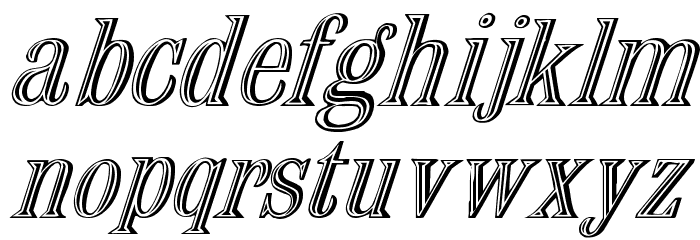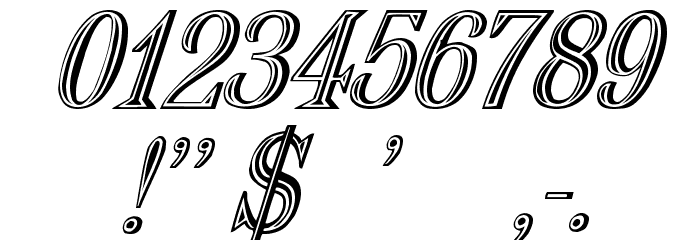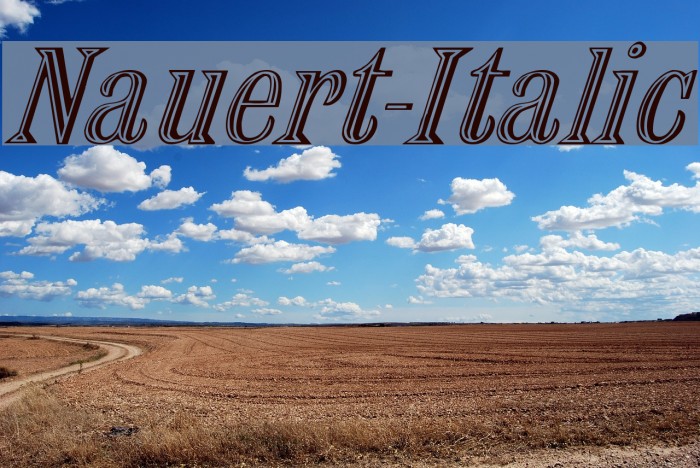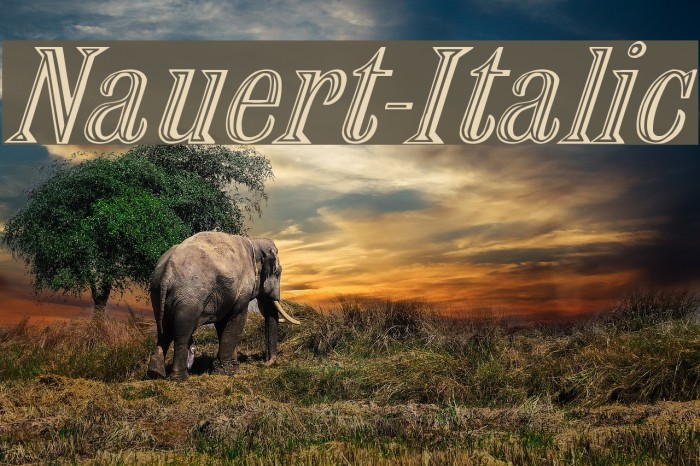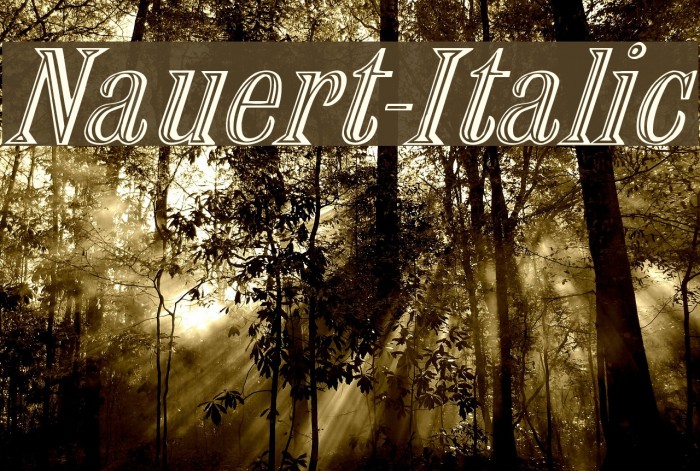
Nauert-Italic Font
This font features a classic serif style with an elegant italic slant, giving it a sophisticated and timeless appearance. The characters are adorned with thin, sharp serifs and a distinct contrast between thick and thin strokes, enhancing its readability and visual appeal. The uppercase letters are bold and commanding, while the lowercase letters maintain a graceful flow. The numerals are well-proportioned, and the special characters are designed with the same attention to detail, ensuring consistency throughout the typeface. This font is ideal for projects that require a touch of elegance and tradition.
An elegant serif font with an italic slant and high contrast strokes.
- Proposed Projects: Ideal for wedding invitations, luxury branding, editorial design, and formal documents.
- Overall Style: Classic
- Use Case: Headlines, Logos, Invitations